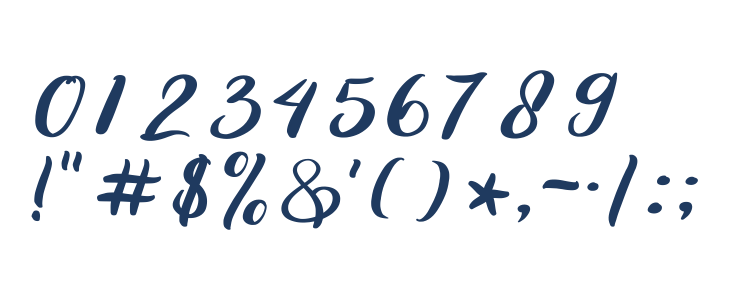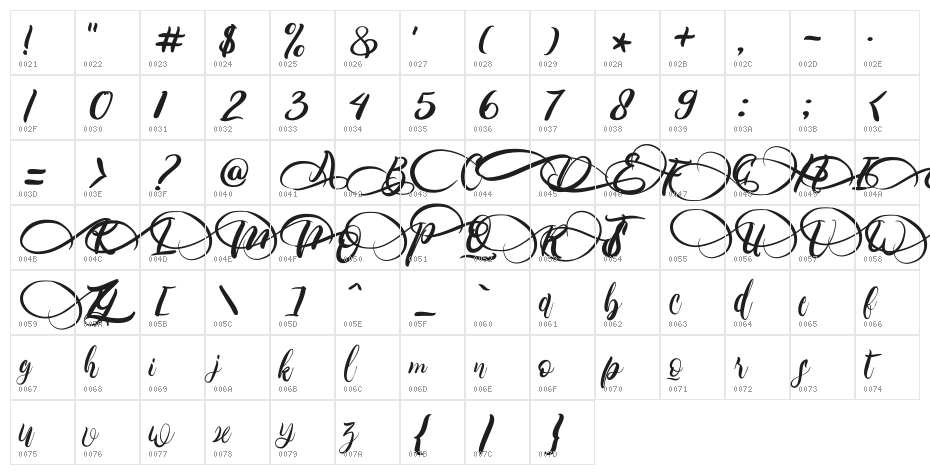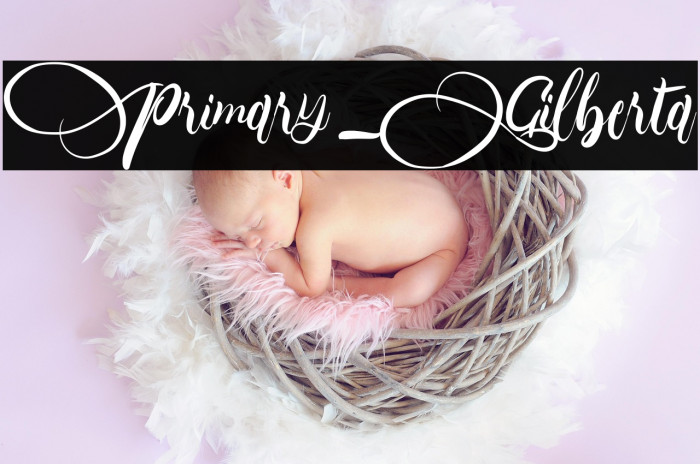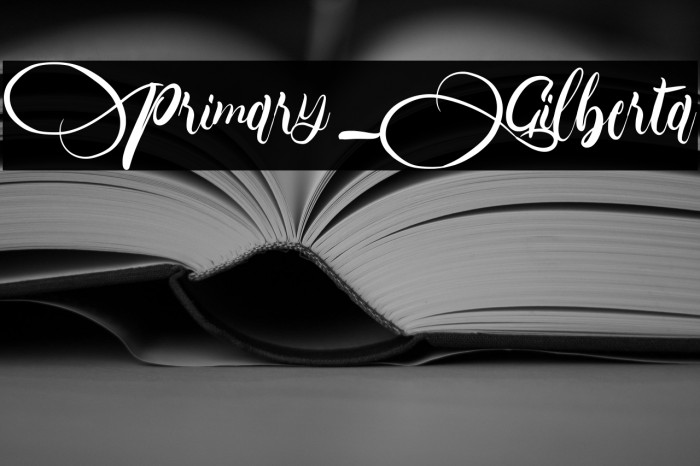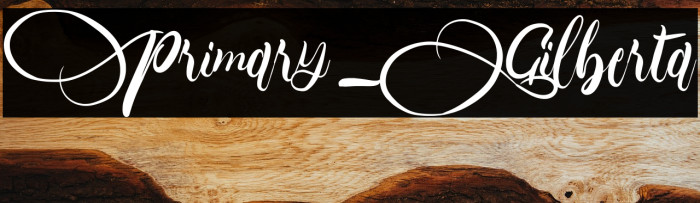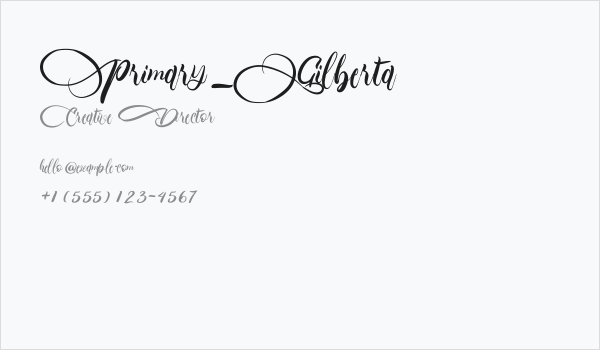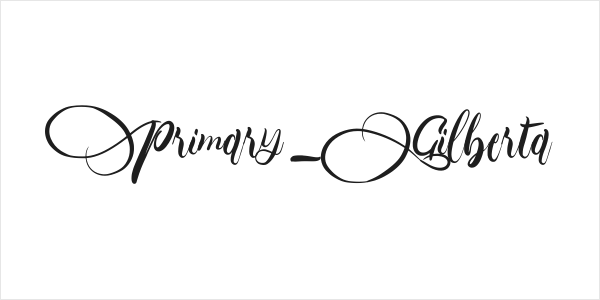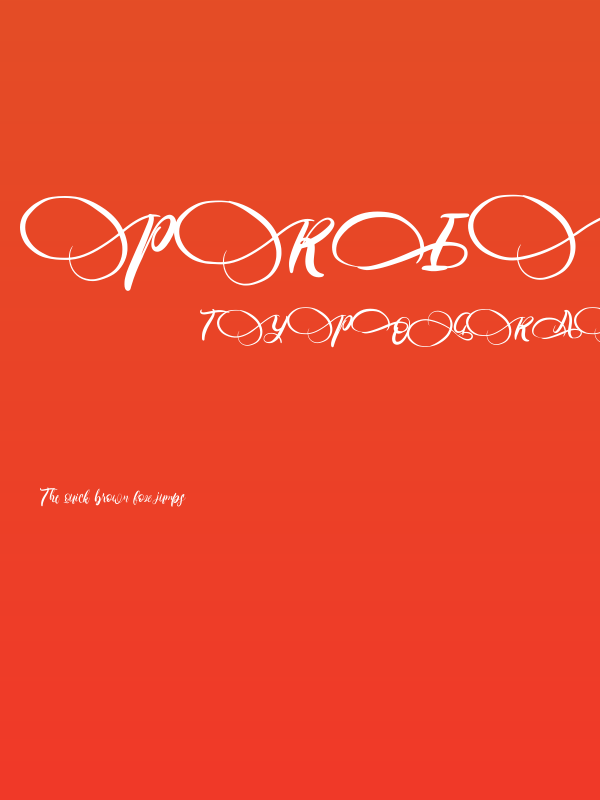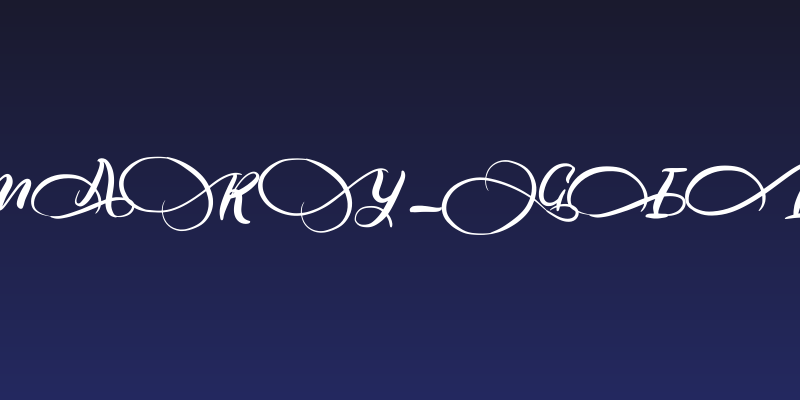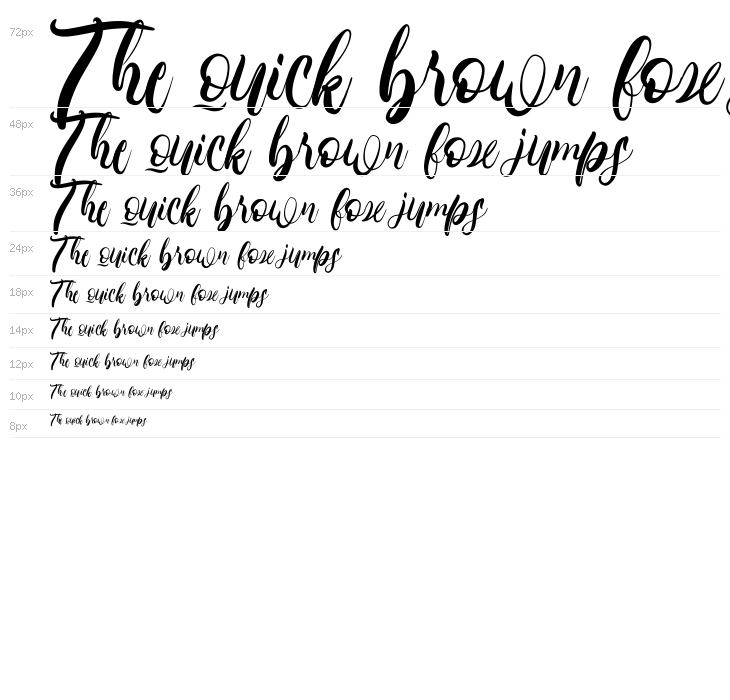
Primary_Gilberta Font
Primary_Gilberta Description
This font showcases a dynamic and elegant script style, characterized by its flowing and interconnected letterforms. The uppercase letters are particularly ornate, featuring intricate loops and swashes that give a sense of movement and sophistication. The lowercase letters maintain a more consistent flow, with smooth curves and a slightly more restrained design compared to the uppercase. The numerals and special characters complement the overall style, maintaining the same fluidity and elegance. This font is ideal for projects that require a touch of elegance and flair, such as invitations, branding, and decorative headings.
| Use Case | Headlines, Logos, Invitations |
| Proposed Projects | Ideal for wedding invitations, luxury branding, decorative headings, and artistic projects. |